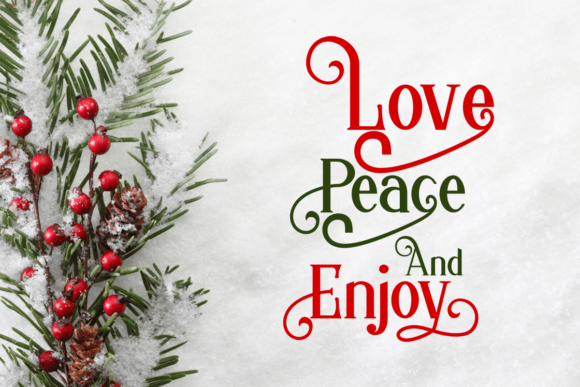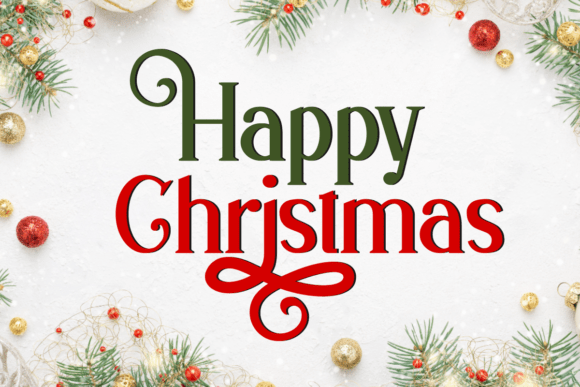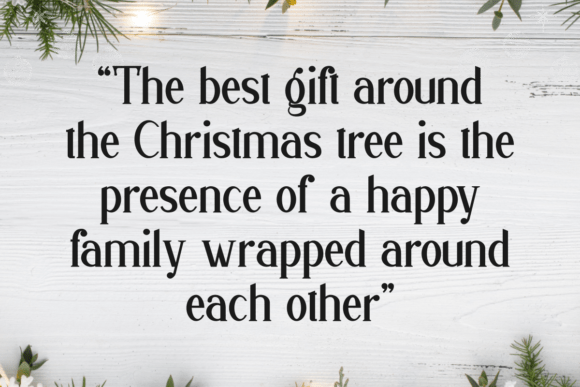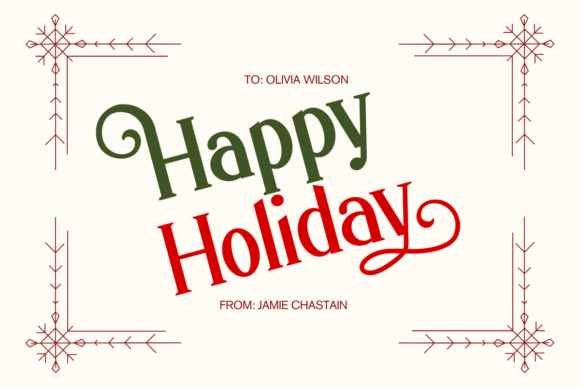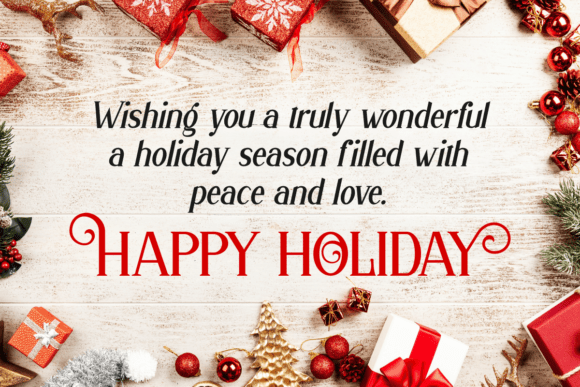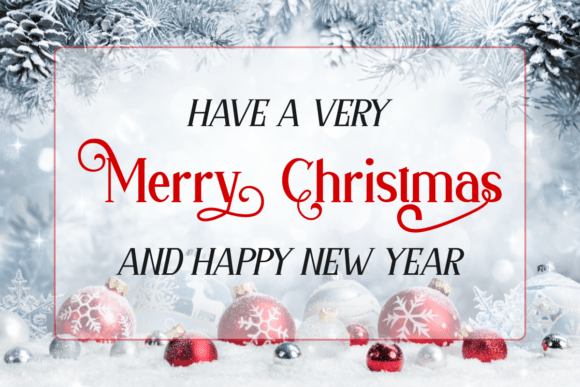
Introduction to Merrychristmas Regular Font
Merry Christmas is a decorative festive display font that brings the holiday spirit to life with its joyful and elegant charm.
Its curly swashes and cheerful, playful letterforms make every design sparkle with the warmth and magic of the season Perfect for Christmas cards , invitations , tote bags , mugs , ornaments , posters , gift tags , and so much more, Merry Christmas is designed to add a whimsical yet sophisticated touch to all your holiday projects.